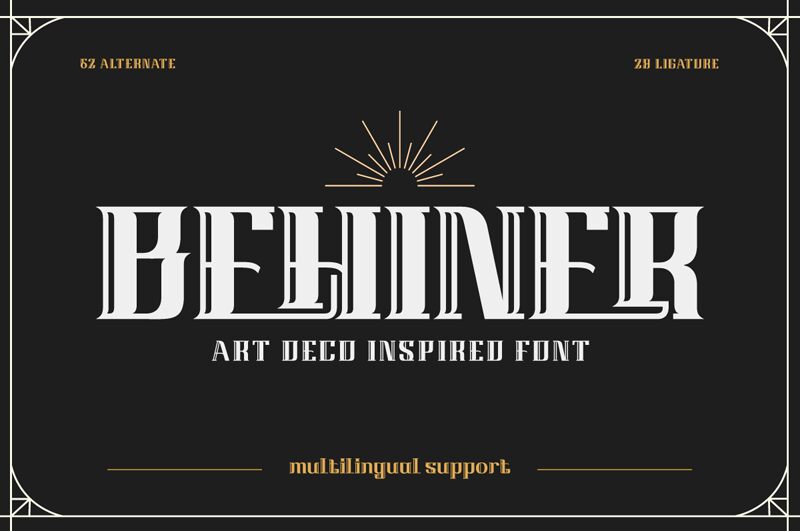
Behiner font family by twinletter consists of 2 font styles inspired by the decorative Art Deco movement. Proudly traditional, yet contemporary, this free font family holds decorative elements and symmetry within each letterform. Add a touch of finesse to your vintage themed projects with Behiner to achieve a sophisticated, elegant, and stylish feel.
Creative uses above all else would include applications within advertising, packaging, branding, editorial design, and social media. Type out Behiner on your next project headings, subheadings, or log cards. Blur the lines between modernity and ancient times with this marvelous timeless typeface.